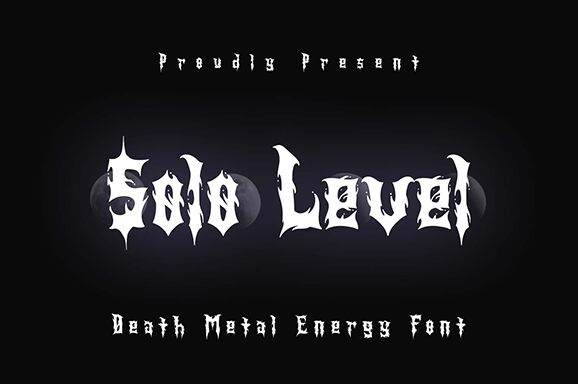
Solo Level is a modern gothic font designed by Esa Nugroho. With its bold weight and semi-condensed width, this typeface is perfect for projects that require a strong visual impact. Its sleek and edgy design makes it ideal for branding, logos, titles, posters, and other creative designs that require a contemporary touch. Solo Level's versatility also makes it suitable for gaming websites, fashion magazines, music album covers, and movie posters. Whether you're looking to create a dark and moody atmosphere or make a statement with your typography, Solo Level is the perfect font to elevate your designs to the next level.